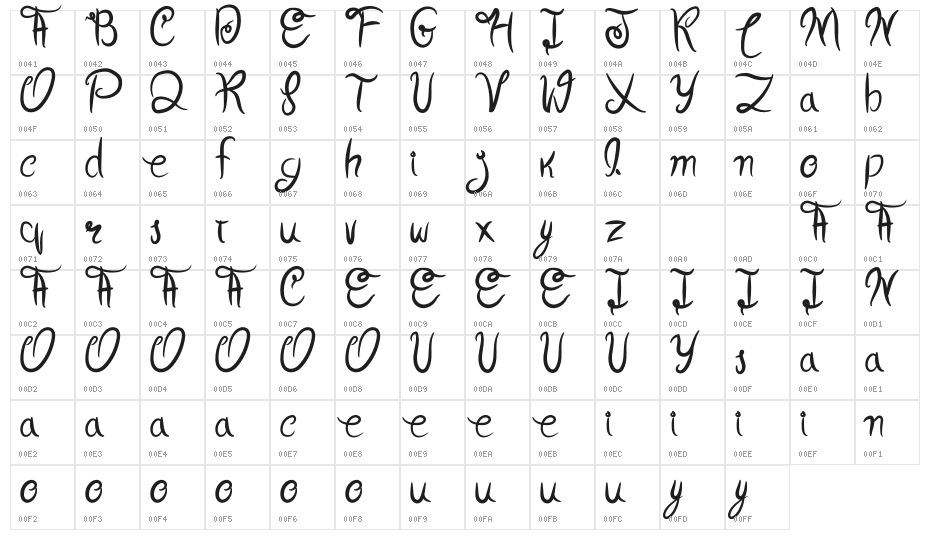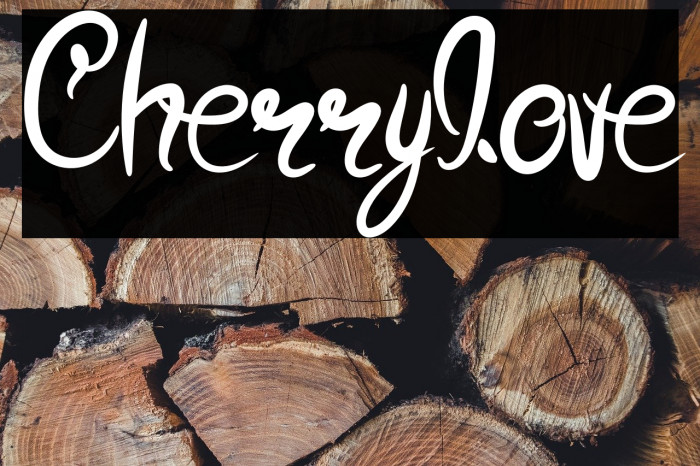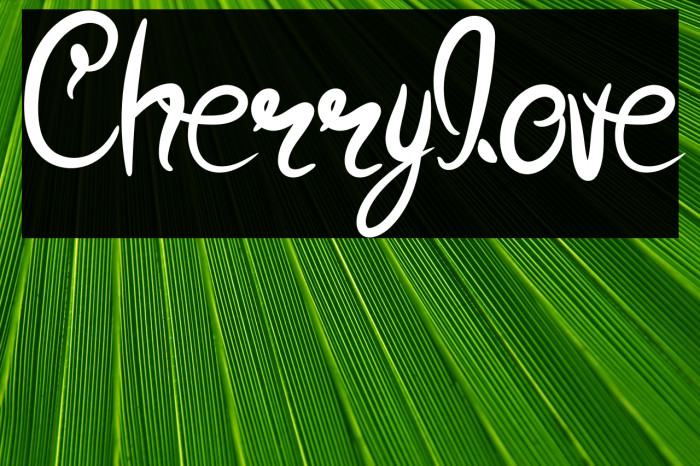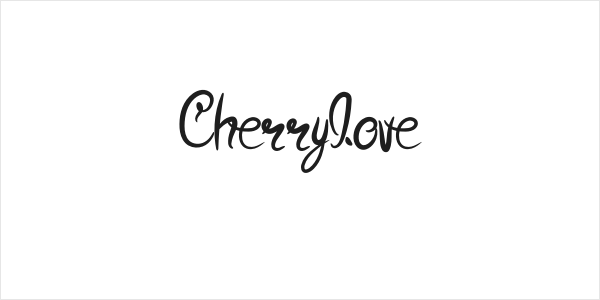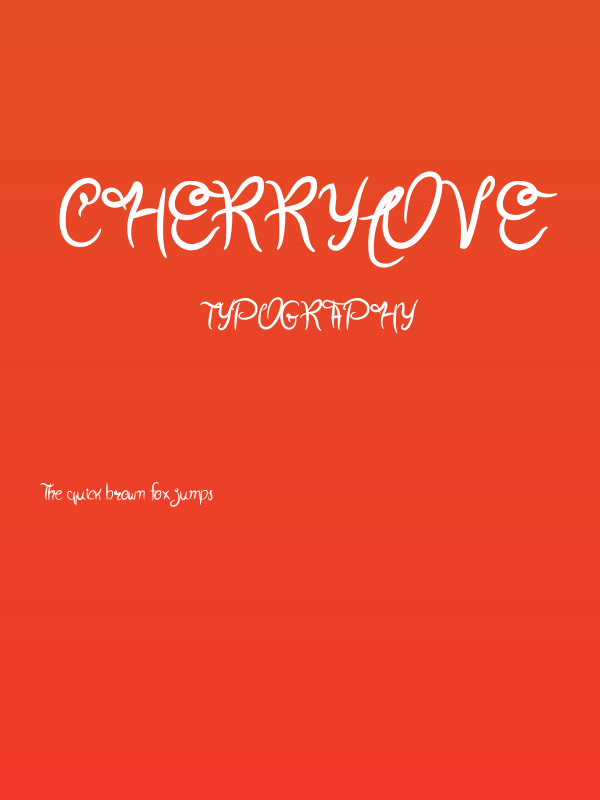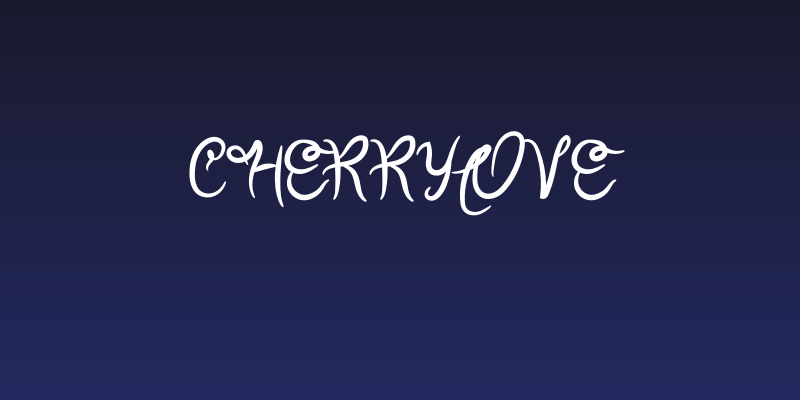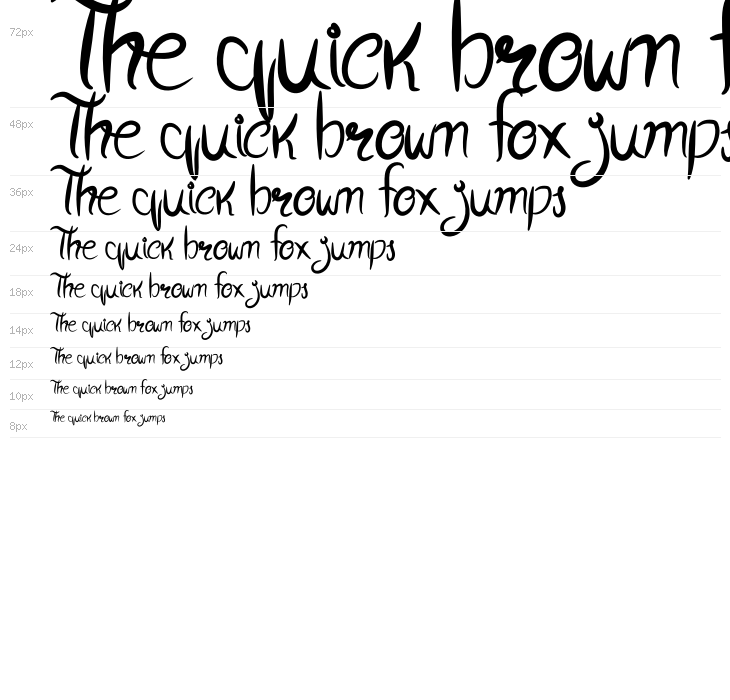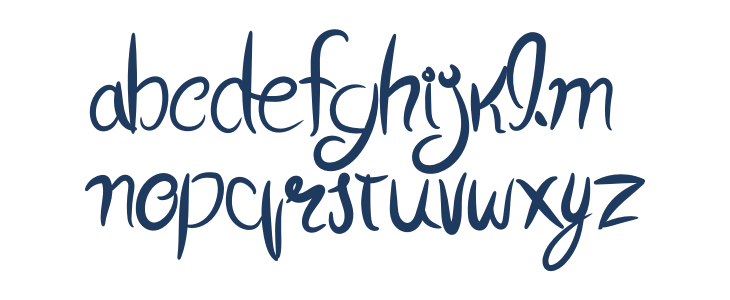
Cherrylove Font
Cherrylove Description
This font features a whimsical and playful script style, characterized by its flowing, interconnected letters and decorative swirls. The uppercase letters are bold and expressive, with unique flourishes that add a touch of elegance and creativity. The lowercase letters maintain a consistent style, offering a smooth and cohesive look. The font's overall appearance is both artistic and legible, making it suitable for a variety of creative projects. Its distinctive style is perfect for adding a personal touch to any design, while still maintaining readability.